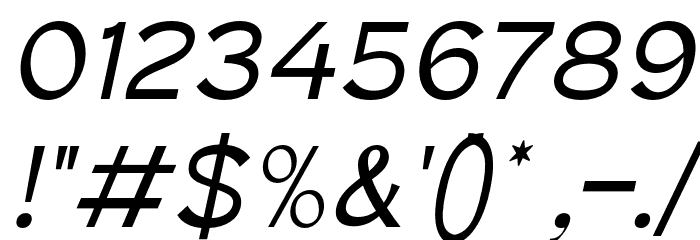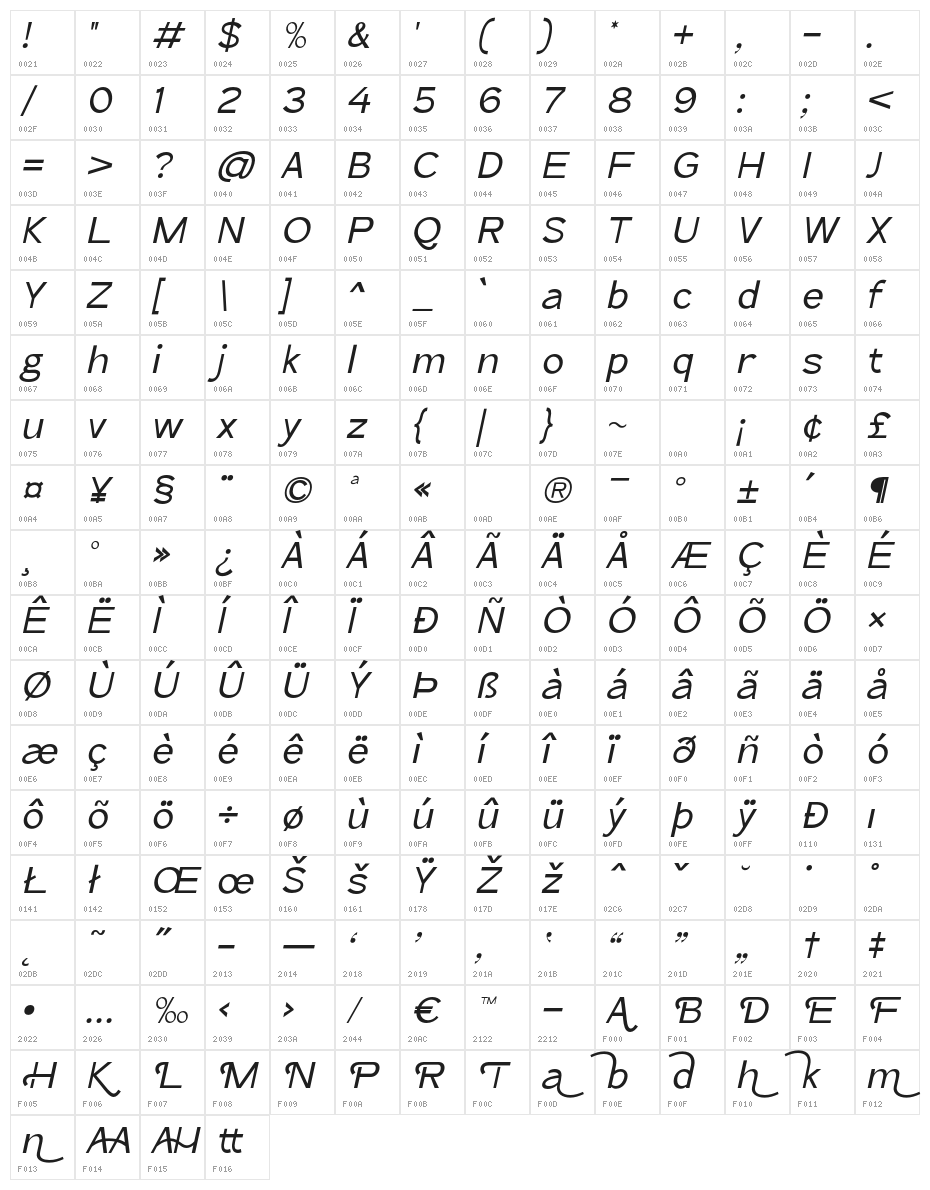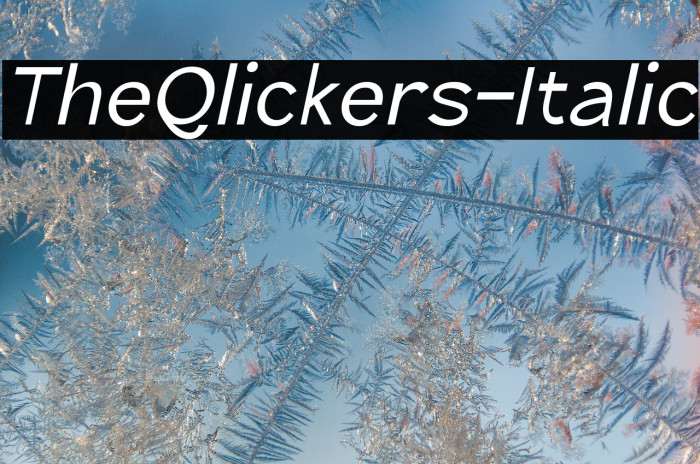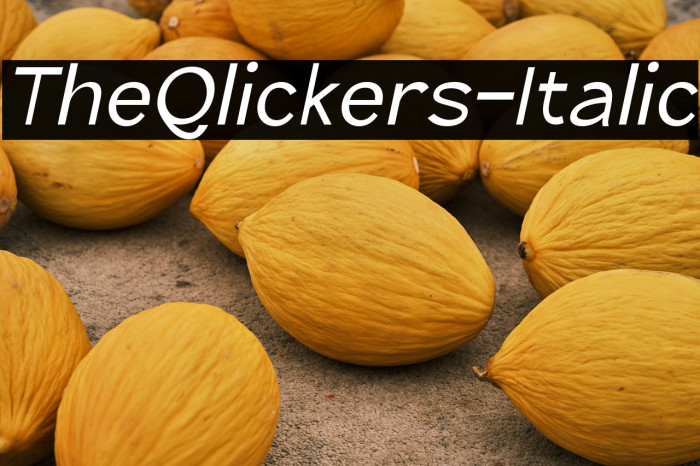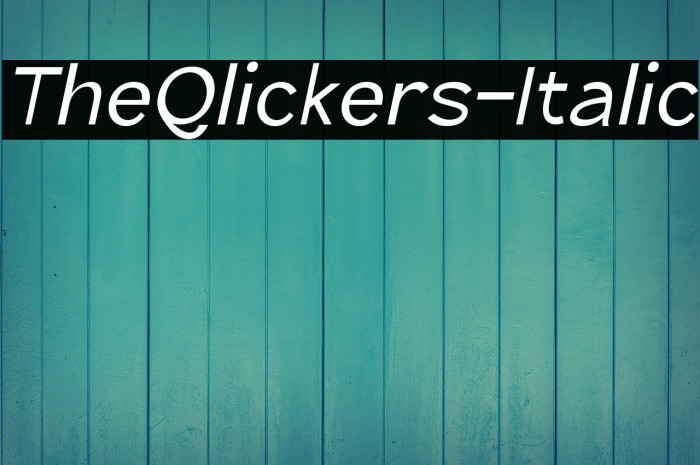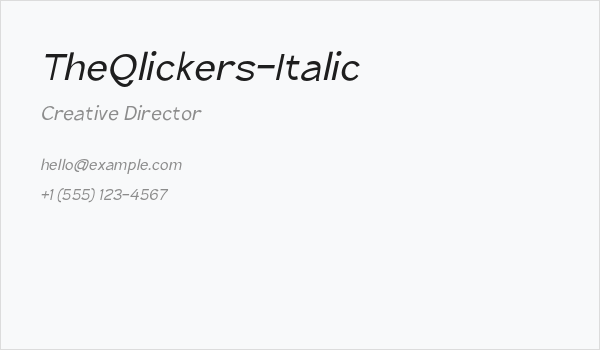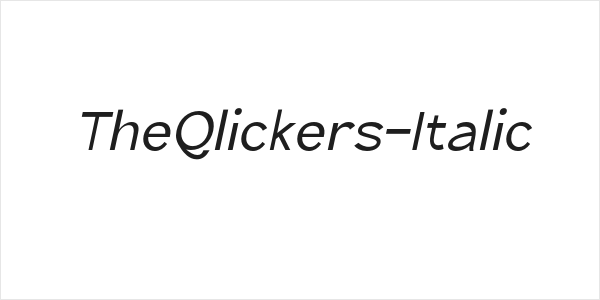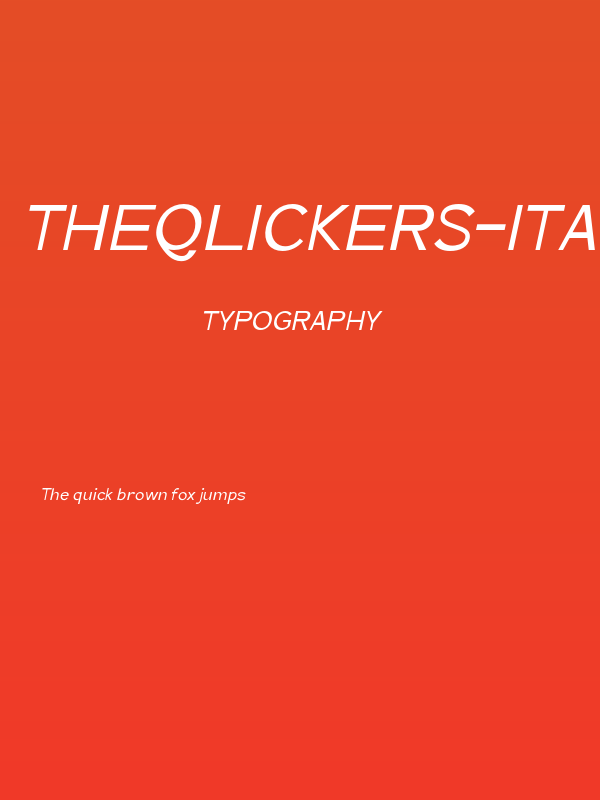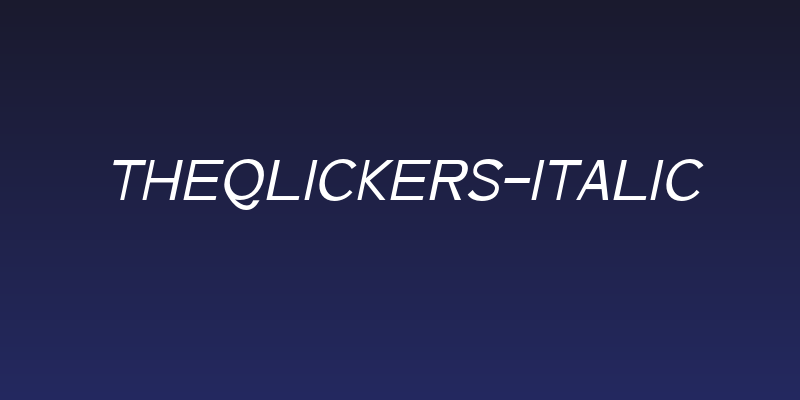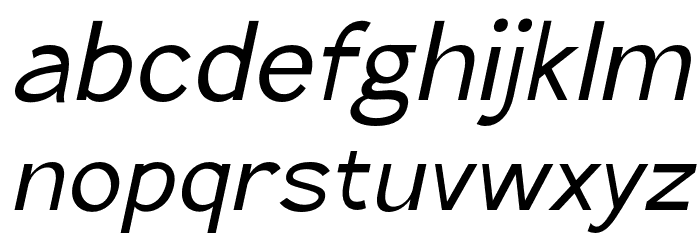
TheQlickers-Italic Font
TheQlickers-Italic Description
This font features a sleek and modern italic style, characterized by its smooth curves and clean lines. The letters are slightly slanted, giving a dynamic and forward-moving appearance. The uppercase letters are bold and prominent, while the lowercase letters maintain a consistent flow with a touch of elegance. Numbers are clear and easy to read, making them suitable for various applications. Special characters are well-designed, maintaining the overall aesthetic of the font. The font's style is versatile, suitable for both digital and print media.
| Proposed Projects | Ideal for branding, advertising, and editorial design projects that require a modern and sophisticated look. |